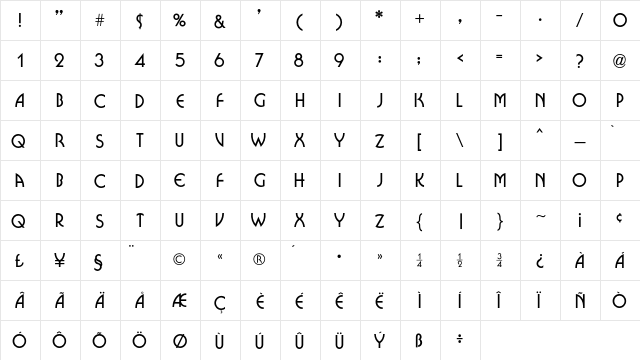
Matinee Regular
Design Context for Matinee Typeface
Matinee takes a measured approach to typography — its balanced proportions and neutral character make it a reliable workhorse for both digital and print work.